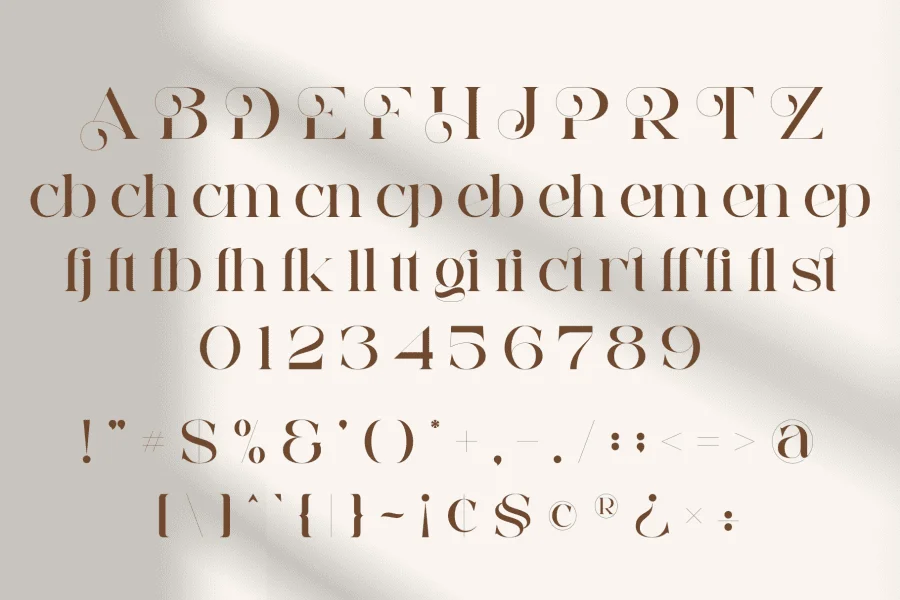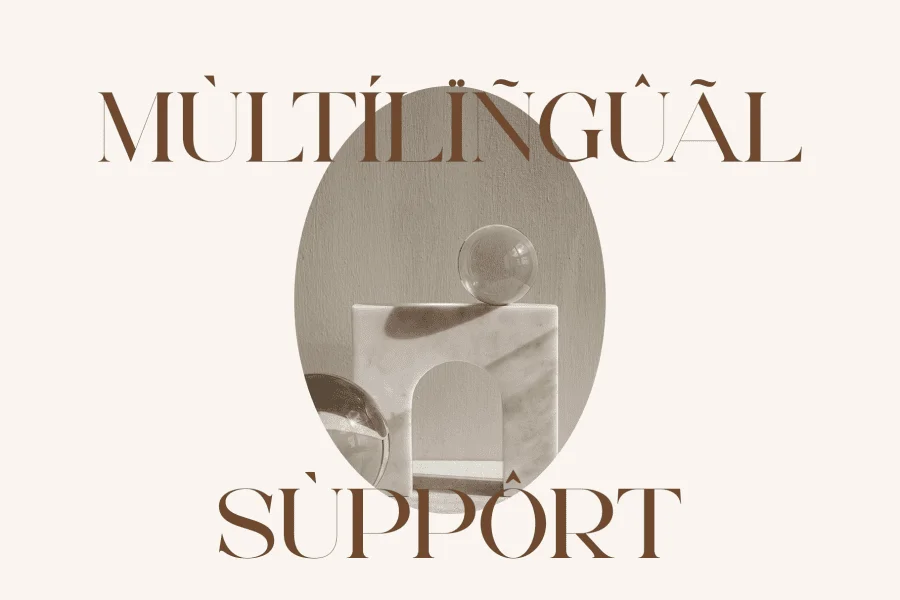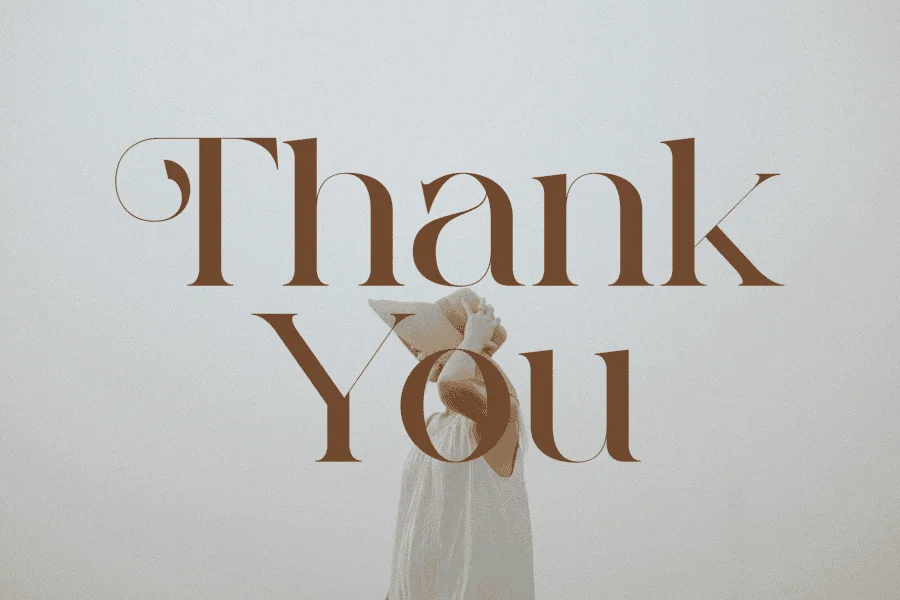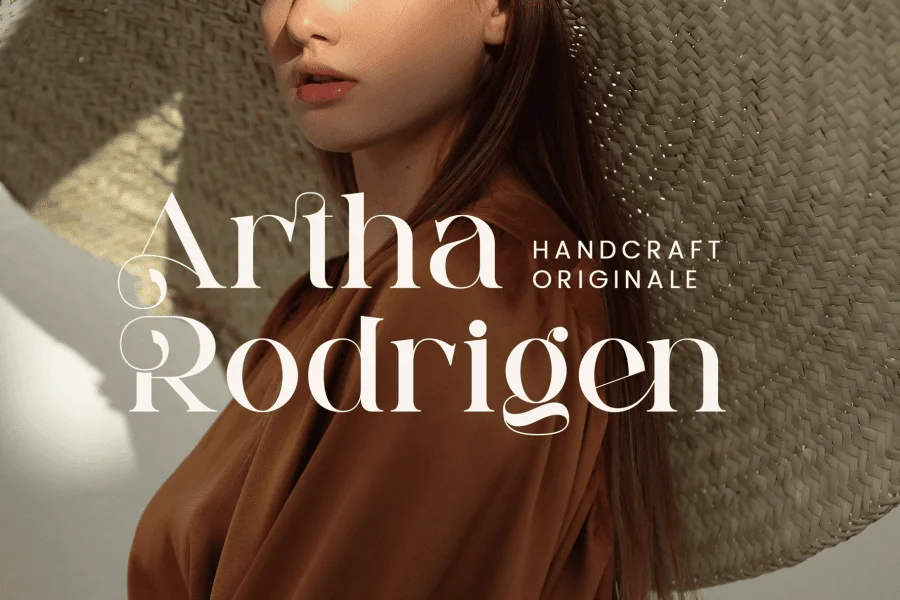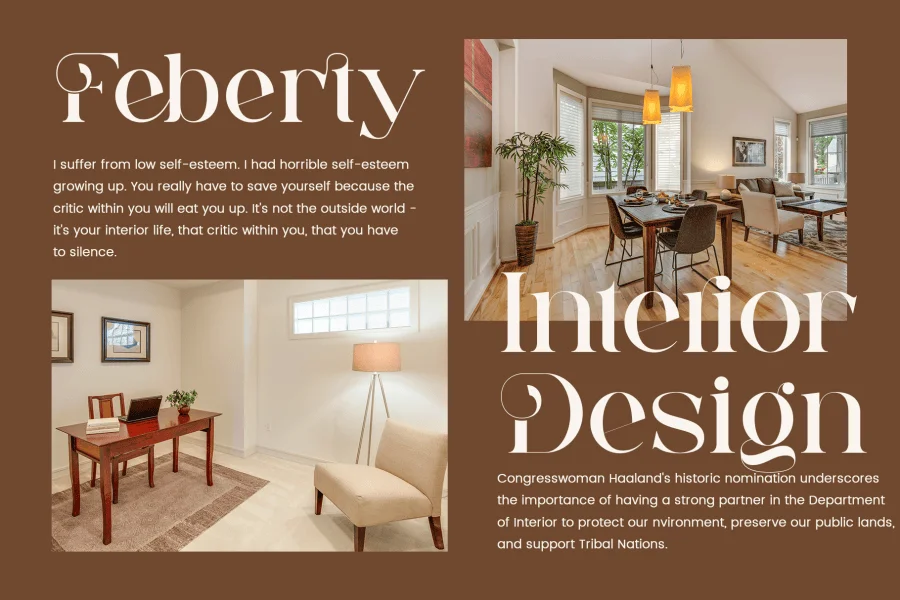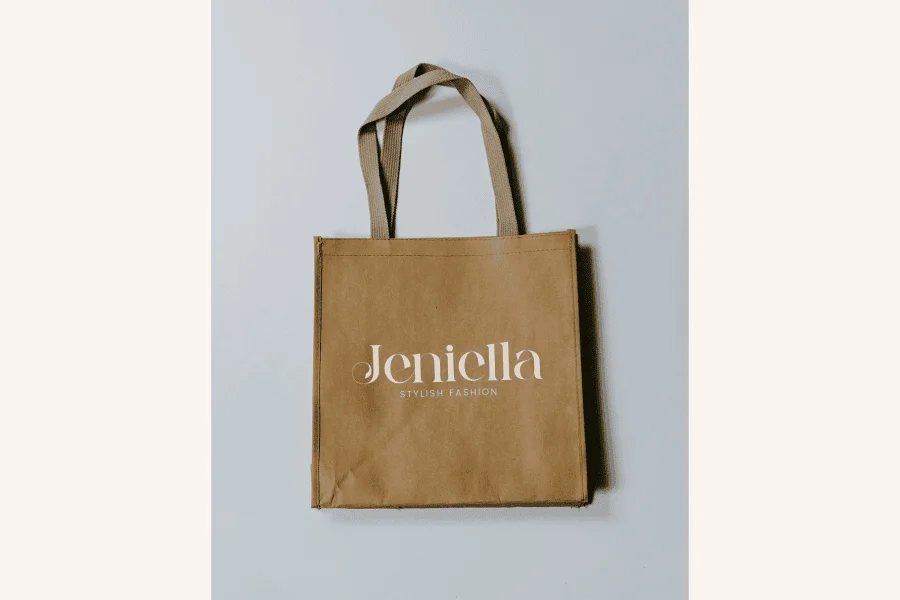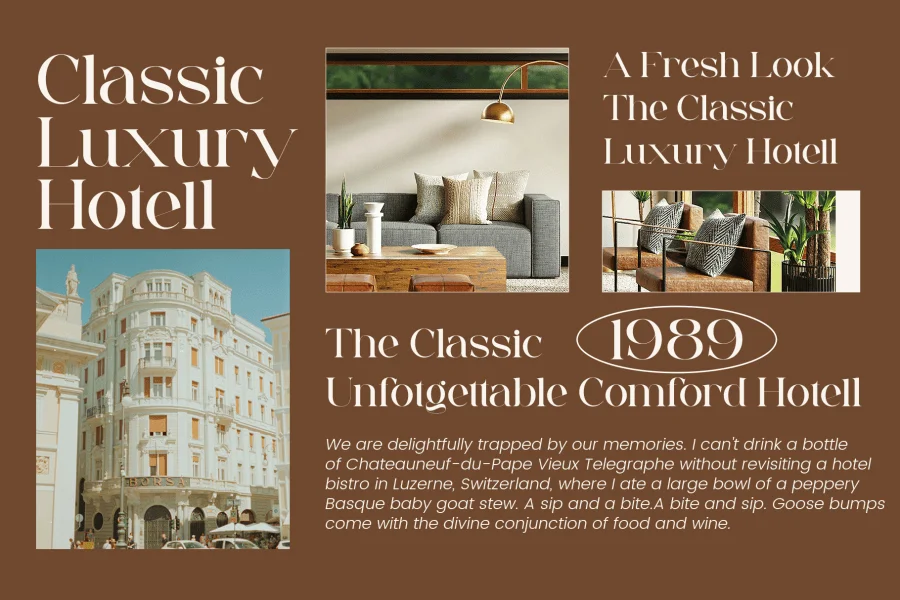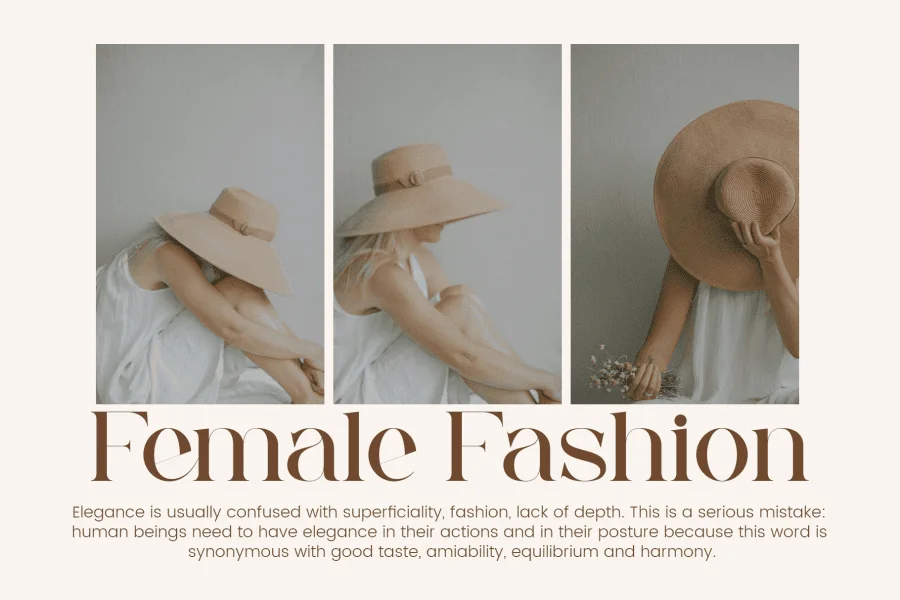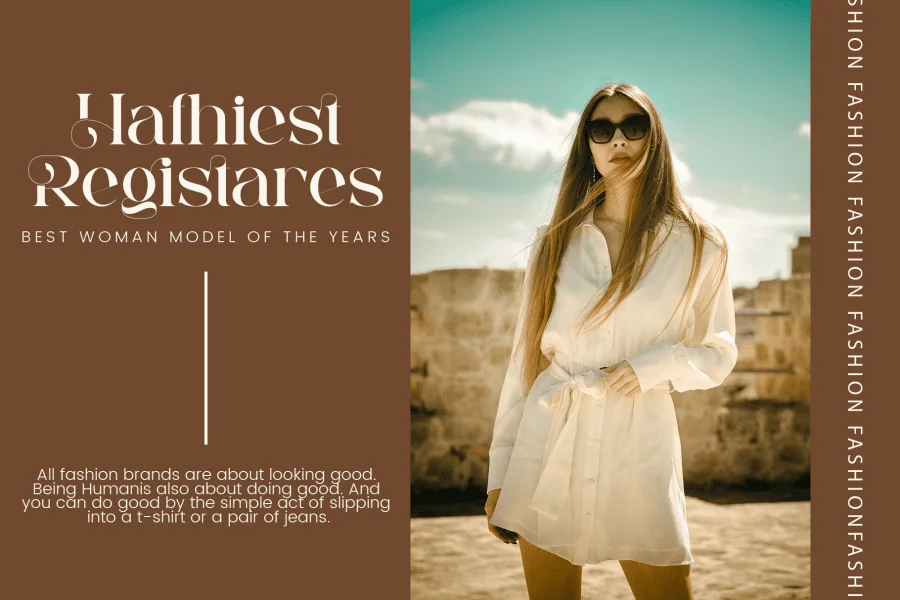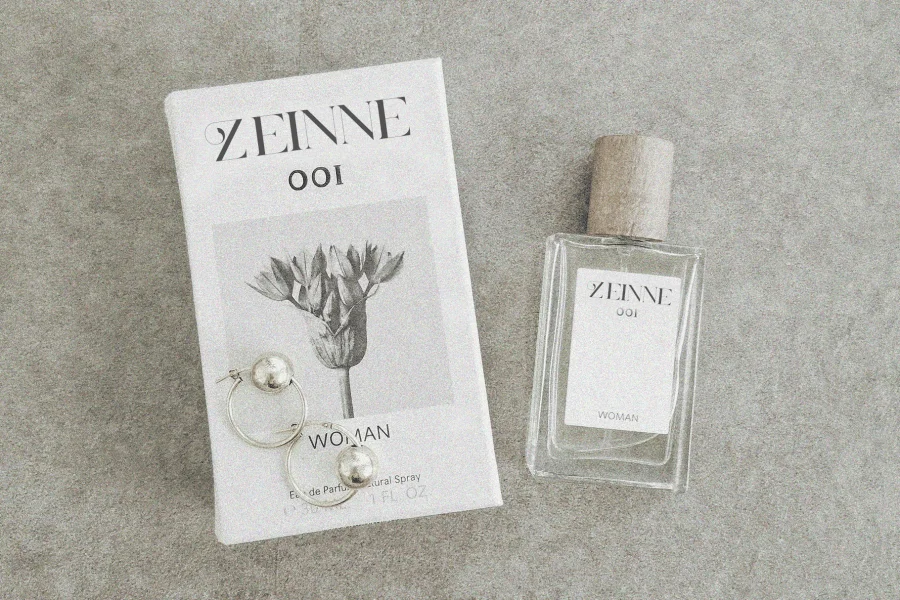
Egista is a high-contrast display serif typeface that balances structural rigidity with fluid, decorative flourishes. The design is characterized by its dramatic stroke contrast, featuring robust, thick vertical stems paired with thin, delicate horizontal lines. Its letterforms are defined by sharp, abrupt serifs and unique, sweeping ligatures that loop gracefully, creating an elegant and rhythmic typographic texture. The upright posture and consistent baseline alignment ground the typeface, while the organic, curving terminals inject a sense of movement and sophistication.
This typeface is highly suited for editorial design, luxury branding, and high-end packaging. Its distinct visual signature makes it an excellent choice for fashion mastheads, cosmetics identity systems, boutique hotel signage, and prominent display headlines where a refined, classic-yet-modern aesthetic is required.